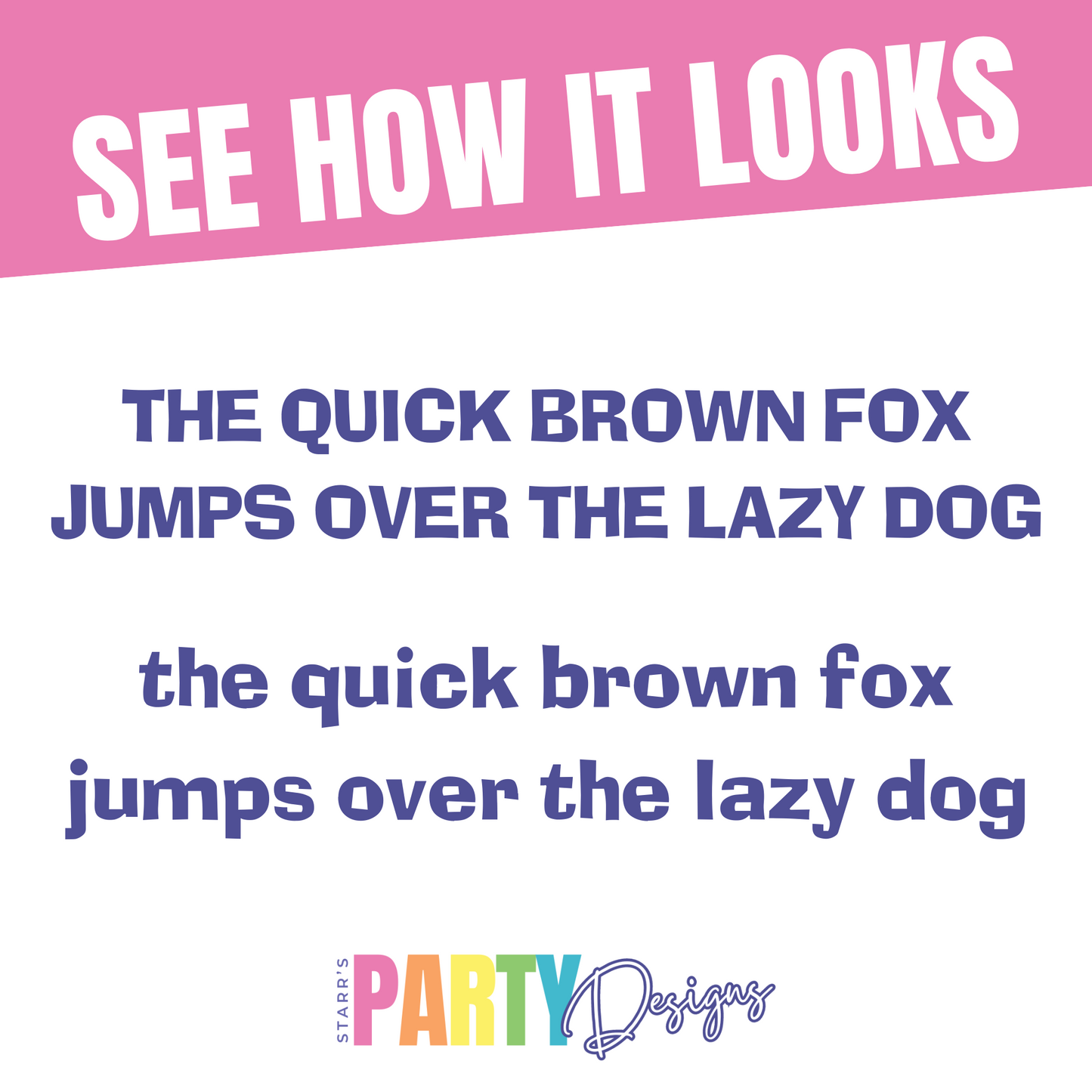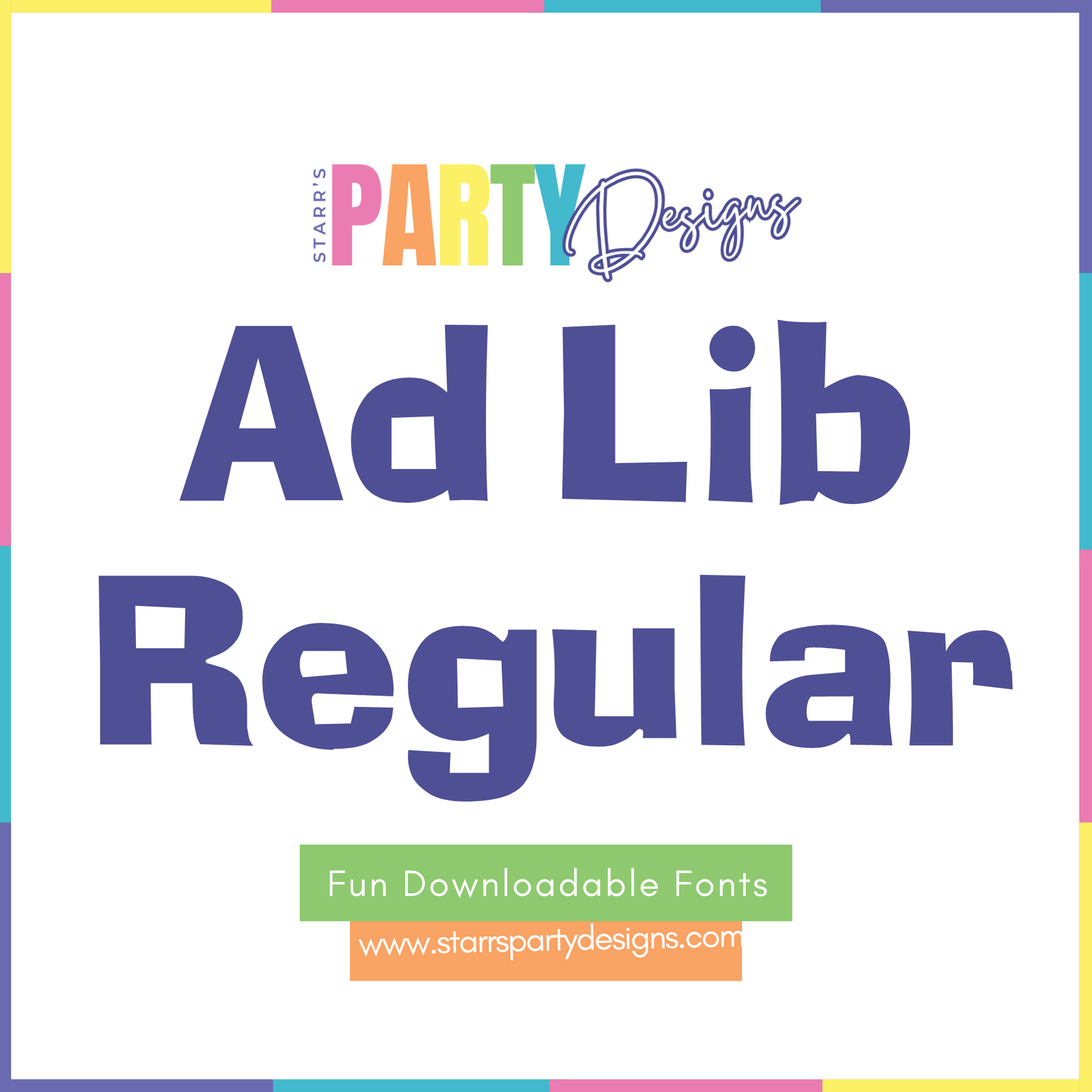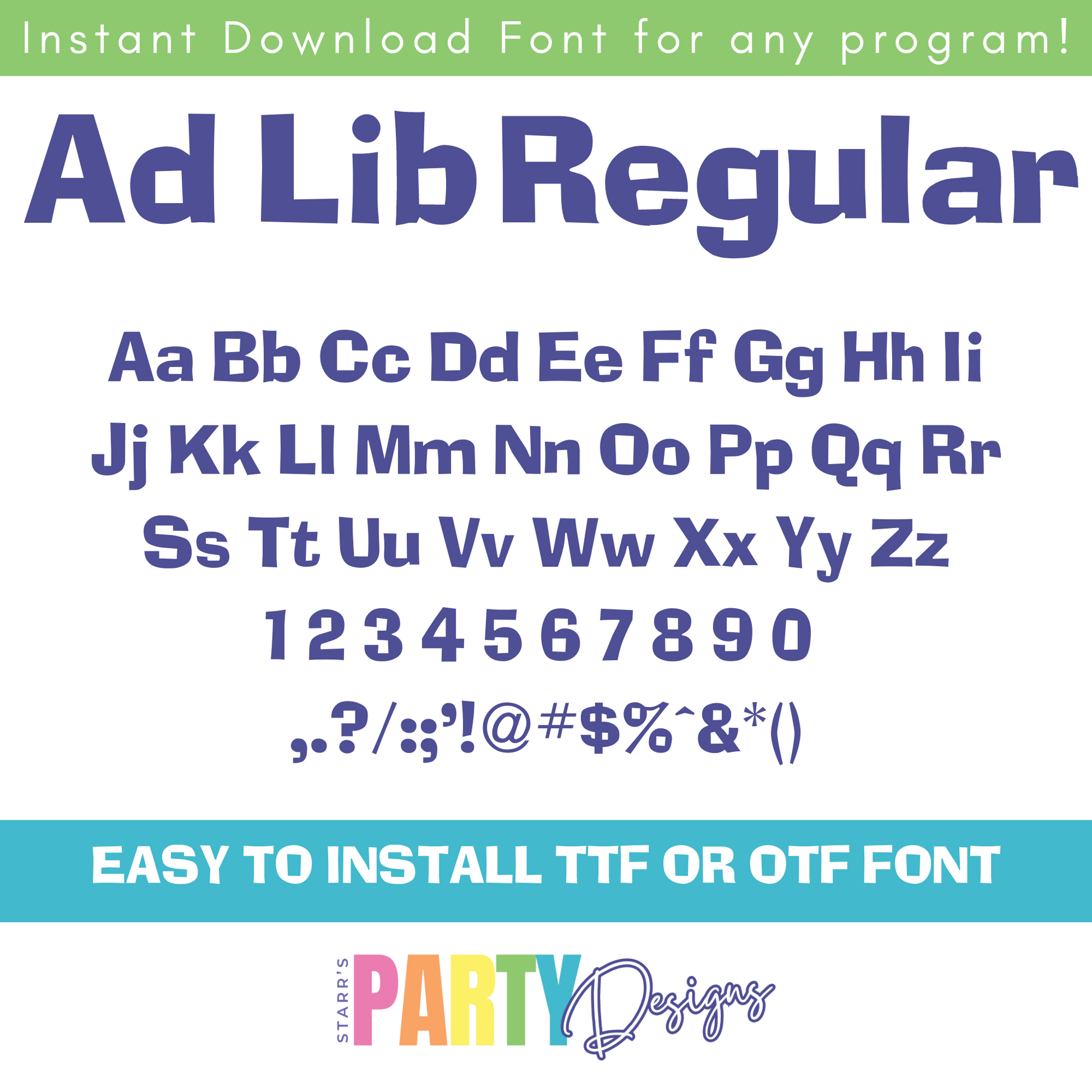
AB LIB REGULAR FONT
AB LIB REGULAR is perfect for: designer crafts, logos, branding, svg files, greeting cards, procreate, shirts, posters, social media, planner prints and more!
This font is one of the font from the popular Spongebob's logo.